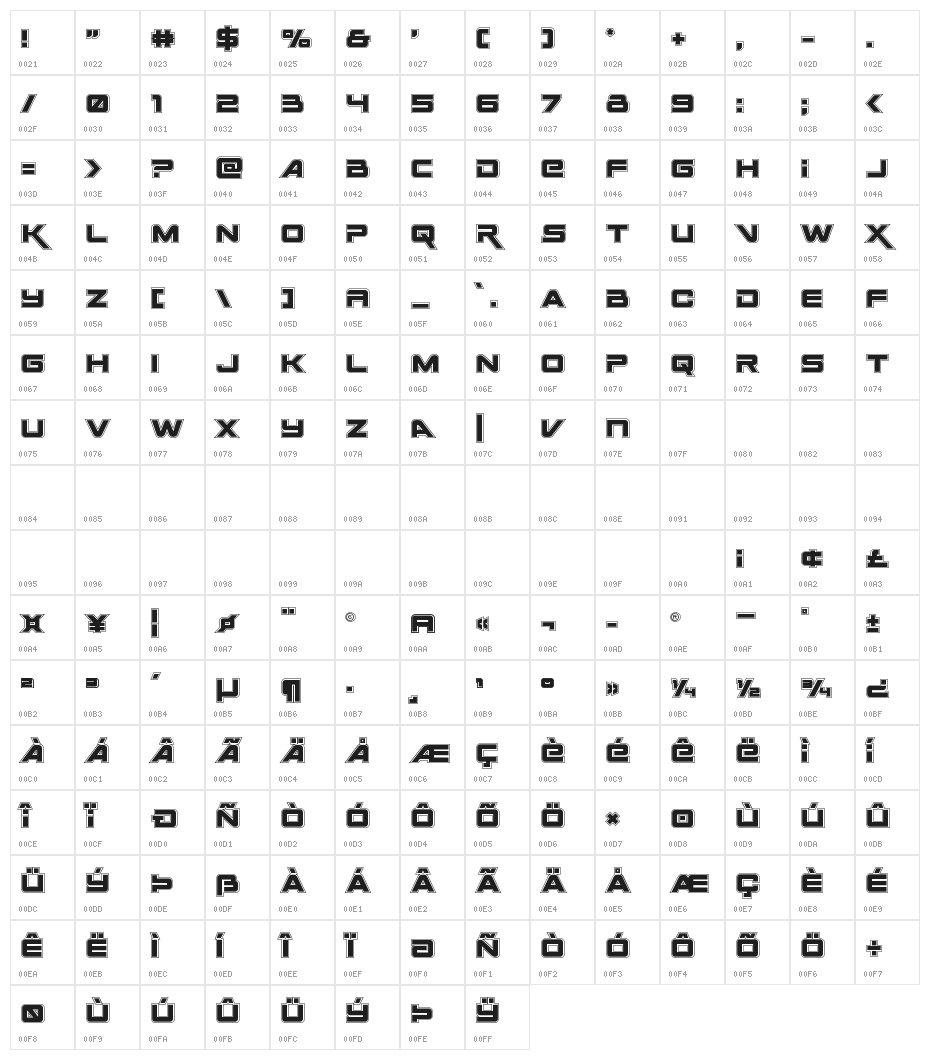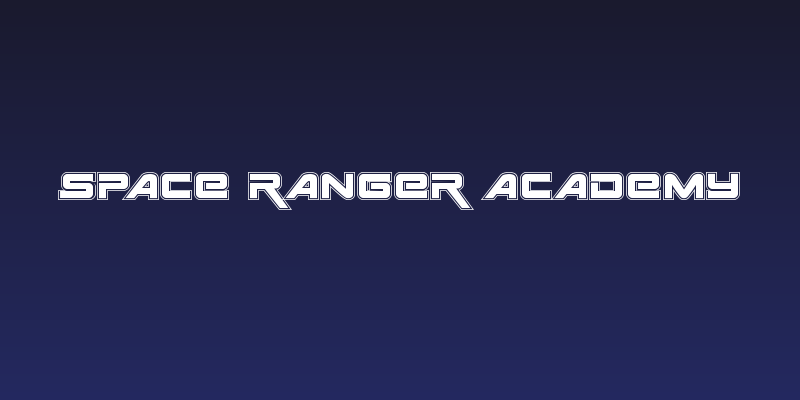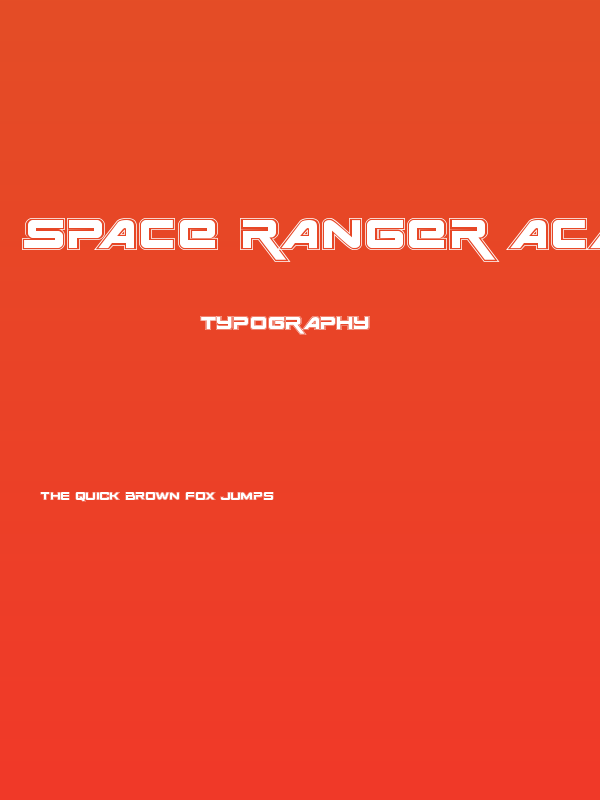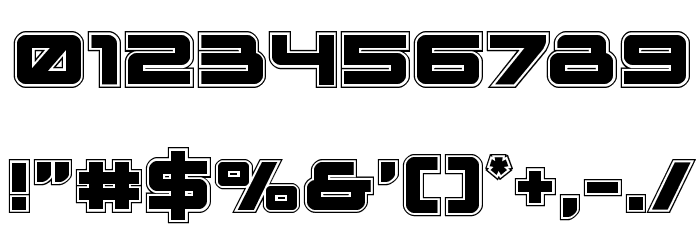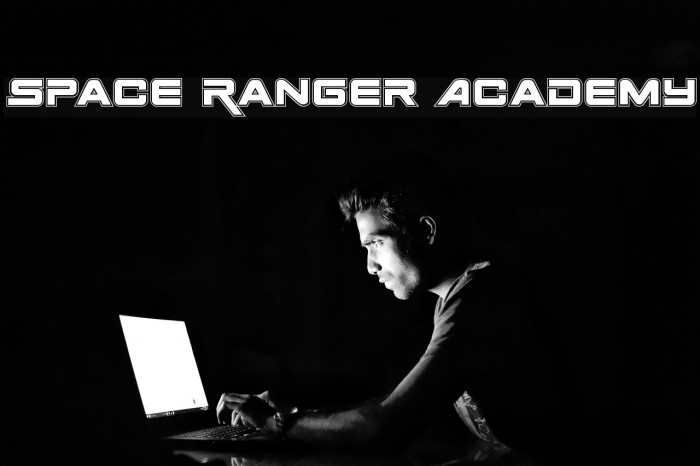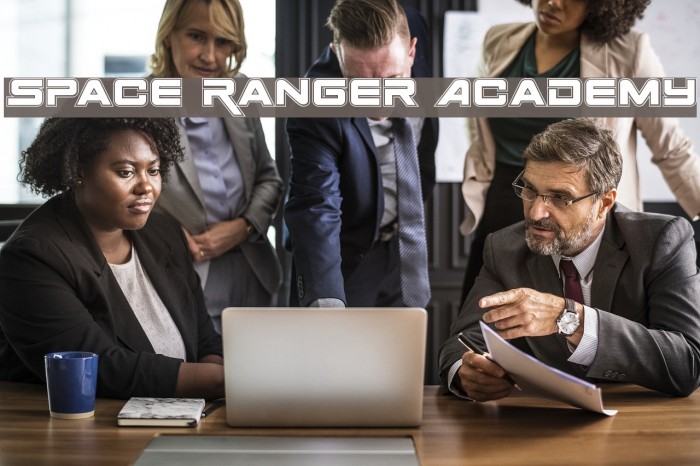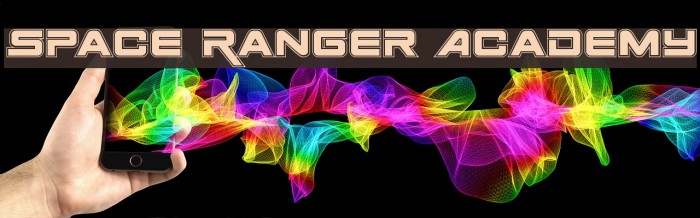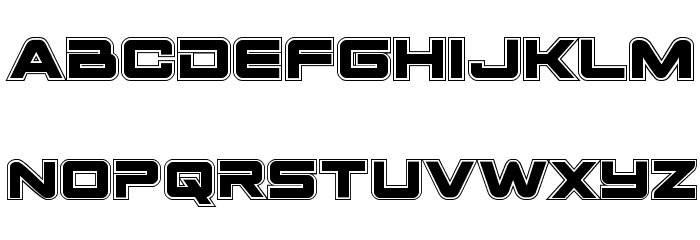
Space Ranger Academy Font
Space Ranger Academy Description
This font features a bold, futuristic design with sharp angles and a distinct geometric style. The uppercase letters are characterized by their strong, dynamic lines and a sense of movement, reminiscent of sci-fi aesthetics. The lowercase letters maintain this theme, offering a cohesive look across different text cases. Numbers and special characters are designed with the same boldness and angular precision, making them stand out. The font's overall appearance is striking and modern, suitable for projects that require a futuristic or space-themed look.
| Proposed Projects | Ideal for sci-fi movie posters, video game titles, tech branding, and space-themed event invitations. |